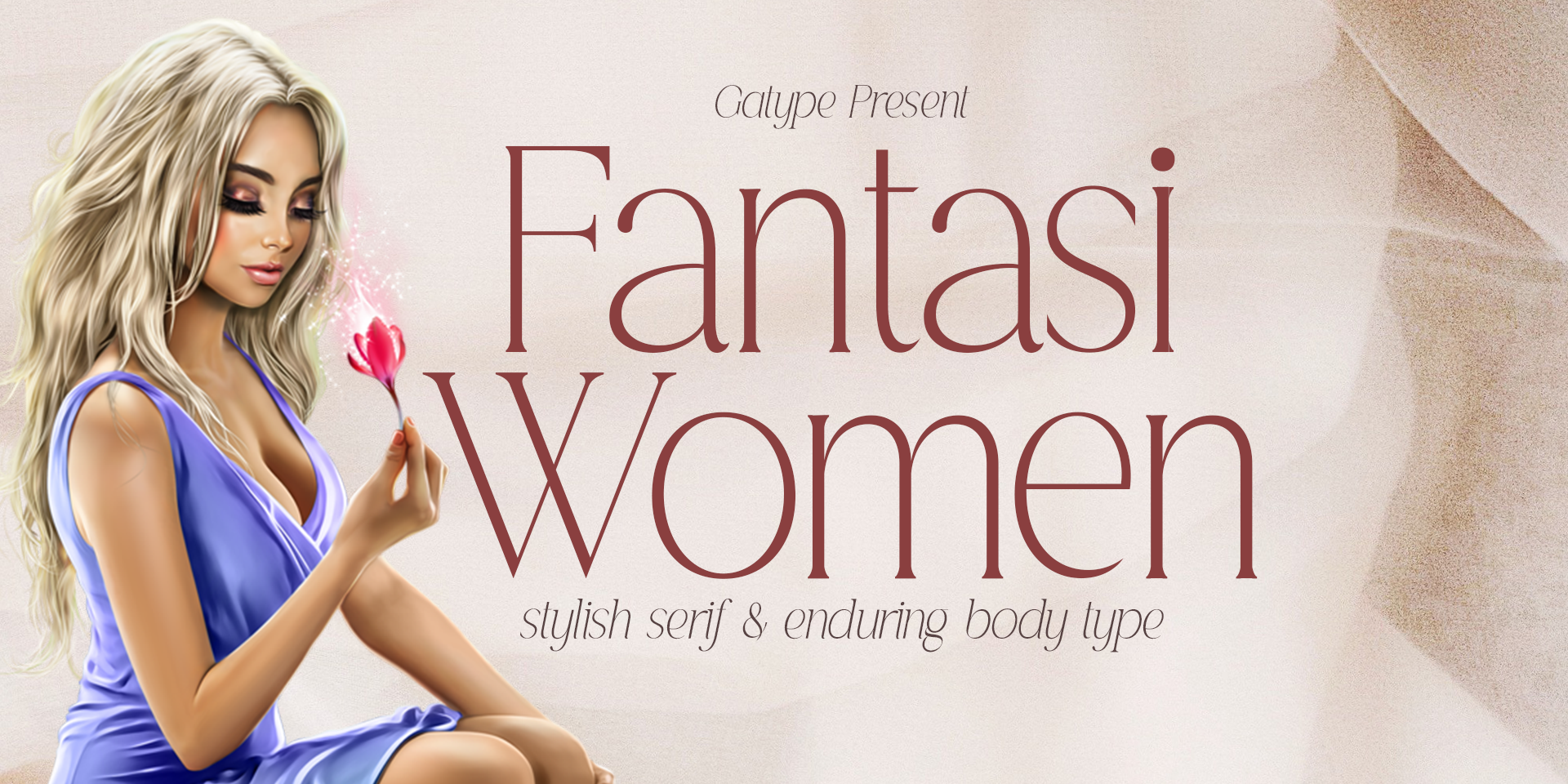
Fantasi Women Font is perfect for feminine fantasy novels, magical beauty product packaging, enchanting women's boutique branding, mystical wellness centers, fairytale wedding invitations, dreamy fashion campaigns, goddess-inspired jewelry labels, and empowering feminine spiritual materials.
This font is exciting because it embodies feminine mystique with magical elegance and empowering sophistication. Fantasi Women Font features flowing letterforms with enchanting curves that capture the essence of feminine power and magical beauty, making it ideal for projects that require authentic feminine energy and mystical character.
The Fantasi Women Font family includes regular, light, bold, and mystical variants, along with magical alternates and feminine ligatures that enhance its enchanting character. Each weight maintains the font's empowering aesthetic while providing different levels of mystical expression for various feminine and fantasy design applications.
Whether you're developing empowering feminine brands, creating compelling magical materials, or designing enchanting women's campaigns, Fantasi Women Font Free Download delivers exceptional beauty and mystical appeal. Its distinctive feminine style makes it an excellent choice for designers seeking to add genuine goddess energy and magical sophistication to their projects. The font's versatility extends from fantasy book covers to feminine wellness branding, ensuring consistent performance across all empowering applications. With its magically crafted letterforms and feminine proportions, this typeface provides professional results that celebrate feminine power and establish enchanting brand presence with its unmistakable mystical character and empowering feminine elegance.